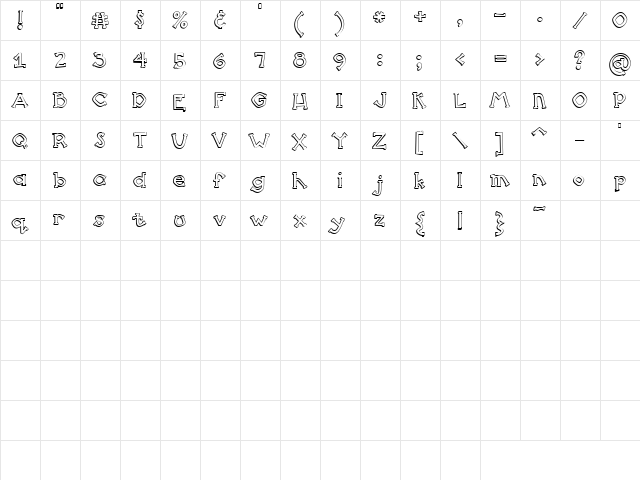
CK Shadowed Block Regular
Design Context for CK Shadowed Block Typeface
CK Shadowed Block brings ornamental detail and strong personality to headlines and identities, where visual impact matters more than quiet functionality.
Font Pairing: Pair with a clean neutral sans-serif for body copy to let CK Shadowed Block's character lead without overwhelming the composition.
Pro Tip: Treat CK Shadowed Block as the centrepiece of your typographic hierarchy. One strong heading set in a decorative face can carry an entire layout.